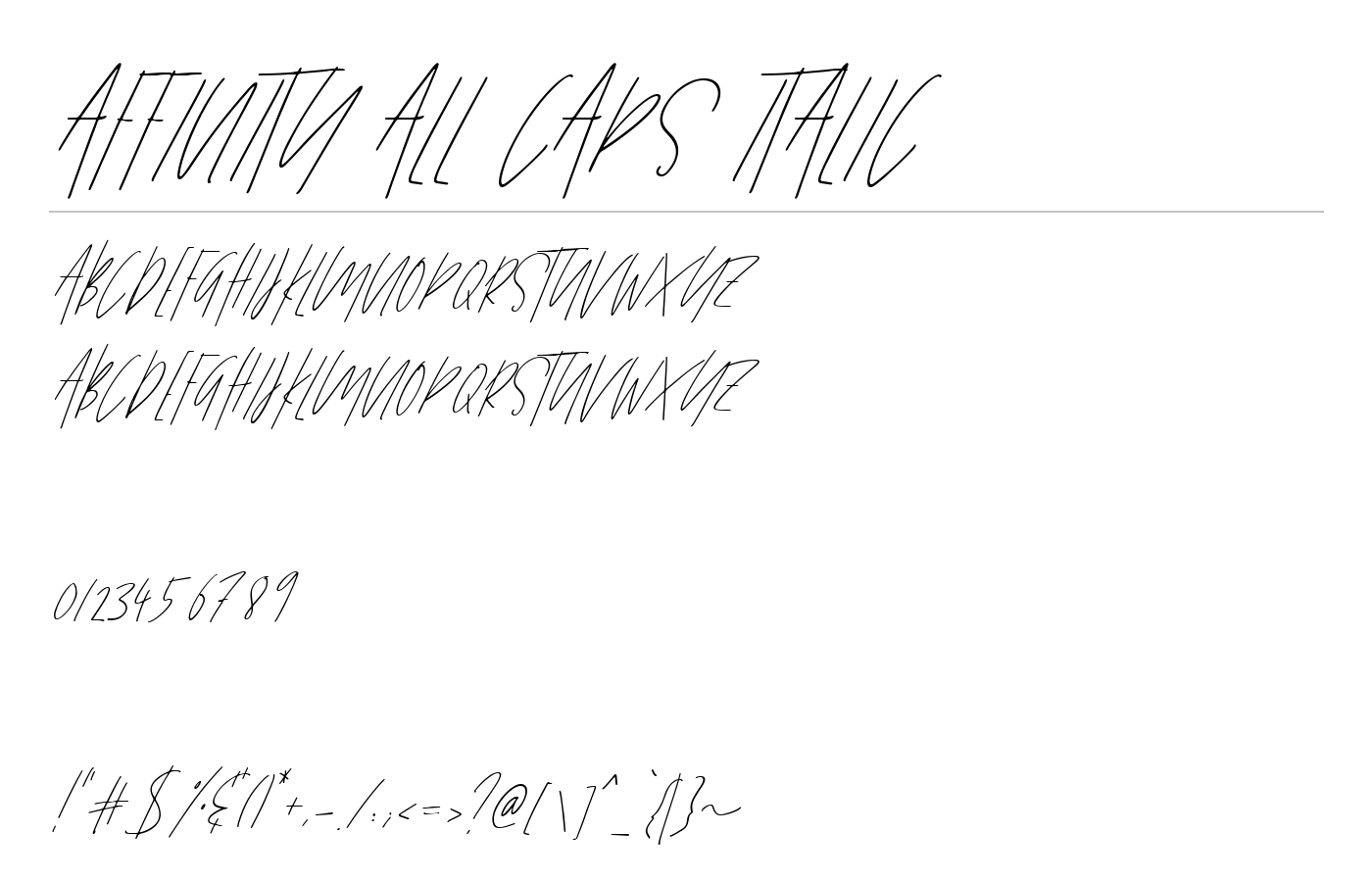
Affinity Font is a delicate, all-caps italic script with a slender, handwritten feel. Its narrow, sharply angled strokes and elegant, flowing lines give it a modern, artistic vibe perfect for creative branding, invitations, and expressive headlines. This font works well where a refined yet personal touch is needed to convey sophistication and uniqueness.
Affinity Font